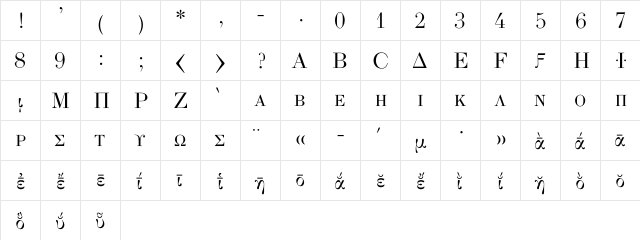
Apla Regular Font Preview
Apla Regular
Design Context for Apla Typeface
Apla takes a measured approach to typography — its balanced proportions and neutral character make it a reliable workhorse for both digital and print work.